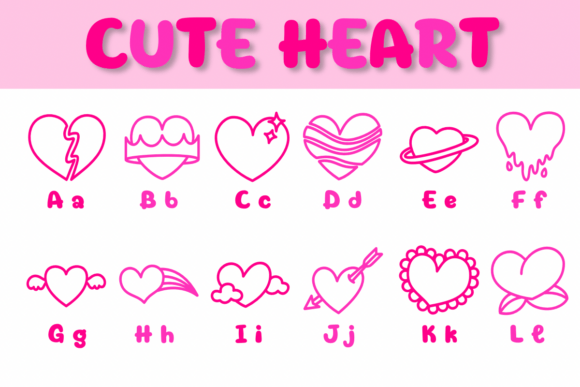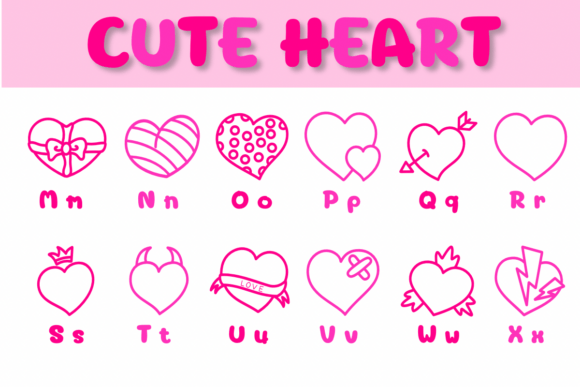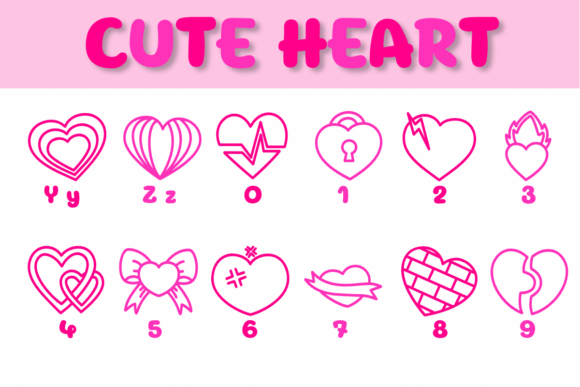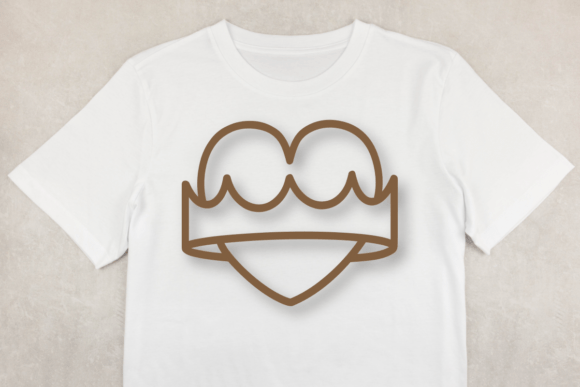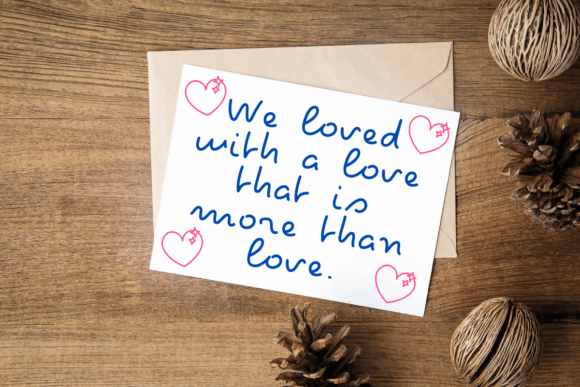
Cute Heart Font: Spreading Love and Joy in Your Designs
Have you ever sat at your desk, staring blankly at a design project, desperately searching for the perfect touch to make it special? You know the feeling – it’s like your creativity is stuck, and all you need is a little spark to set things off. For me, that spark often comes in the form of a playful font, and today, I’m excited to share with you one that’s sure to bring a smile to your face: the Cute Heart Font.
This charming dingbat font is filled with adorable heart designs that are sure to add a sweet touch to any project. Whether you’re creating cards, invitations, or just want to add a bit of whimsy to your designs, the Cute Heart Font is the perfect choice. Its unique heart shapes make it a valuable tool for designers looking to add a little love to their work.
Cute Heart Font Key Features
- Font Family: Cute Heart Font is a unique, hand-drawn font family designed to resemble cute, playful hearts.
- Character Set: Includes a wide range of characters, including uppercase and lowercase letters, numbers, punctuation marks, and special characters, making it suitable for various design projects.
- Unique Characteristics: Features a distinctive, hand-drawn design with varying line widths, giving it a charming, whimsical feel that’s perfect for adding a touch of personality to your designs.
Cute Heart Font Review
Cute Heart Font is a delightful, playful font that brings a touch of whimsy to any design. ✨ The rounded edges and bubbly feel make it perfect for creating a sweet and endearing atmosphere. I particularly love using it for Valentine’s Day-themed designs, children’s products, or any project that needs a dash of innocence and charm. ✨ The font is highly customizable, allowing users to adjust the weight, spacing, and style to suit their needs.
- Playful and whimsical feel that adds a touch of innocence and charm
- Highly customizable with adjustable weight, spacing, and style
- Perfect for Valentine’s Day-themed designs, children’s products, or any project that needs a playful touch
Limited Use Cases
While Cute Heart Font is a delightful addition to any design, there are some limitations to consider: ⚠️ It may not be suitable for more formal or professional projects, as it may come across as too childish or immature. Additionally, the font may not be as readable in smaller sizes or at certain angles, which can affect its overall usability. ⚠️
Cute Heart Font is a lovely addition to any designer’s toolkit. While it may have some limitations, its playful and whimsical feel makes it a great choice for projects that need a touch of innocence and charm. With its high customizability and versatility, I would definitely recommend it for the right projects. However, it’s essential to consider the context and target audience before choosing this font.
The Cute Heart Font is ideal for creating whimsical and playful designs, such as:
– Valentine’s Day cards and invitations
– Children’s book illustrations
– Wedding invitations and decorations